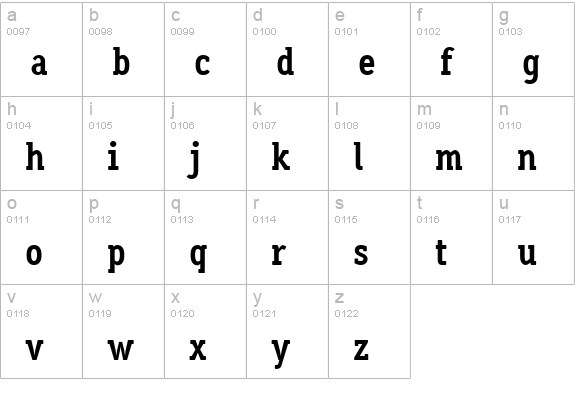
Aaux OfficeBold Font Details
Introducing Aaux OfficeBold, a versatile and modern font designed to make a bold statement in any office setting. With its clean lines and professional aesthetic, Aaux OfficeBold is perfect for a wide range of projects, from business presentations to corporate branding. This font exudes confidence and authority, commanding attention and conveying a sense of professionalism. Its thick strokes and strong presence make it ideal for headlines, logos, and any text that needs to grab the reader's attention. Aaux OfficeBold is not only visually striking but also highly legible, ensuring that your message is easily understood. Its carefully crafted letterforms provide excellent readability at both small and large sizes, making it suitable for both print and digital applications. What sets Aaux OfficeBold apart is not only its exceptional design, but also its accessibility. This font is freely available to download at FontsMarket.com, allowing you to enhance your projects without breaking the bank. Whether you're a student, a small business owner, or a design professional, Aaux OfficeBold offers high-quality typography at no cost. So why settle for generic fonts when you can elevate your designs with Aaux OfficeBold? Download this remarkable font today and experience the power of professional typography, all while staying within your budget.